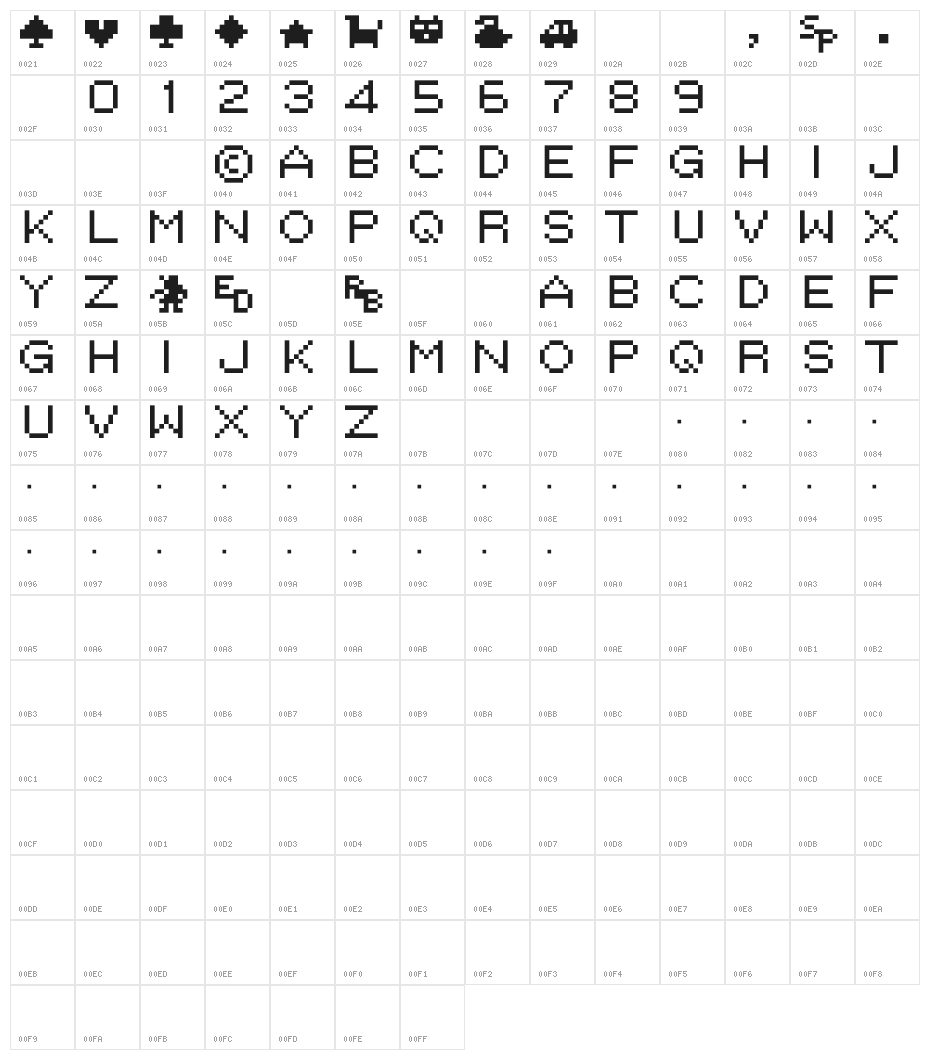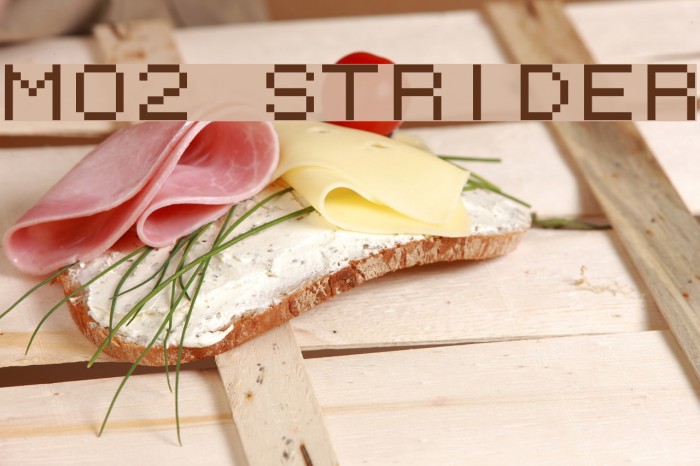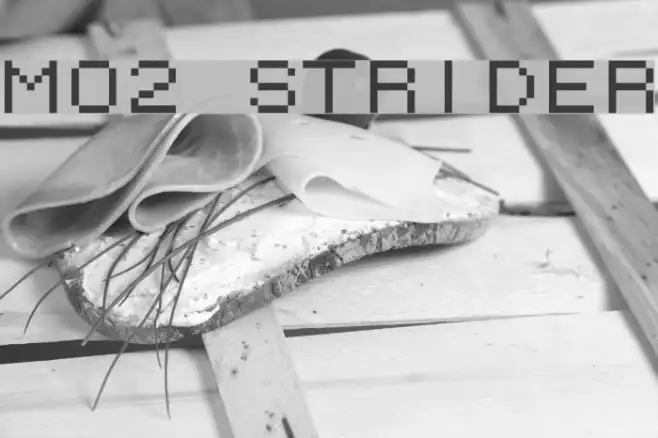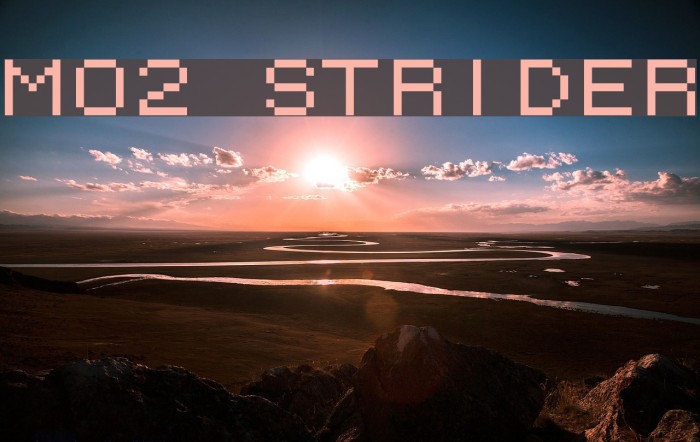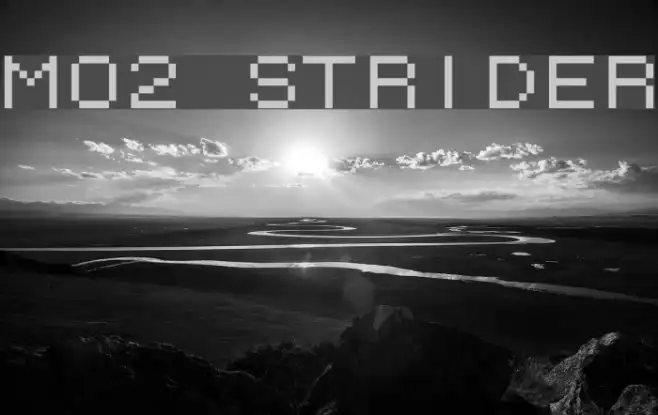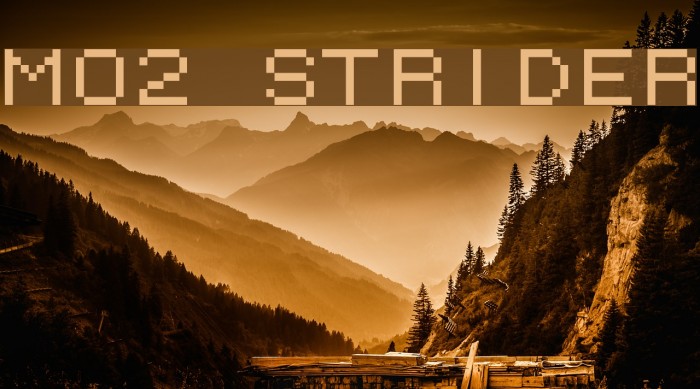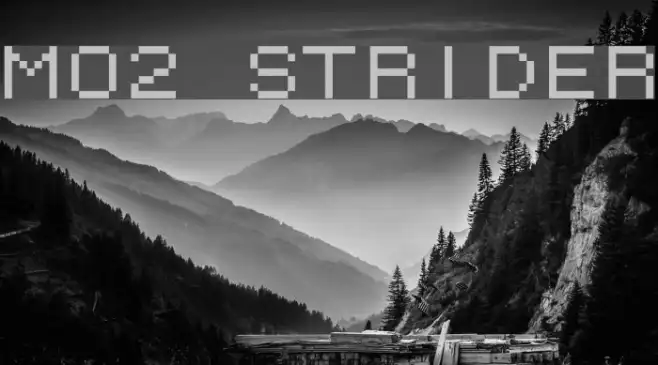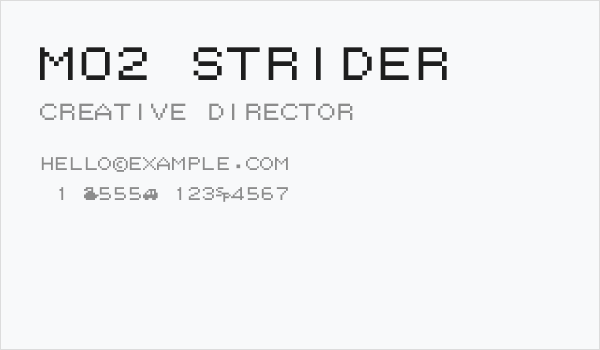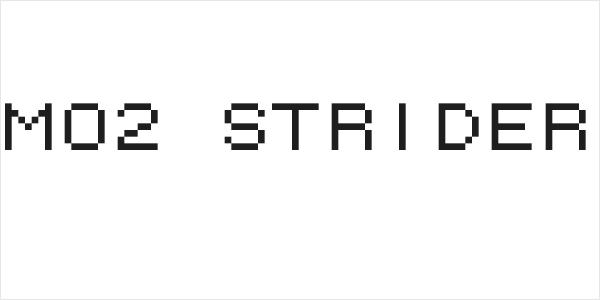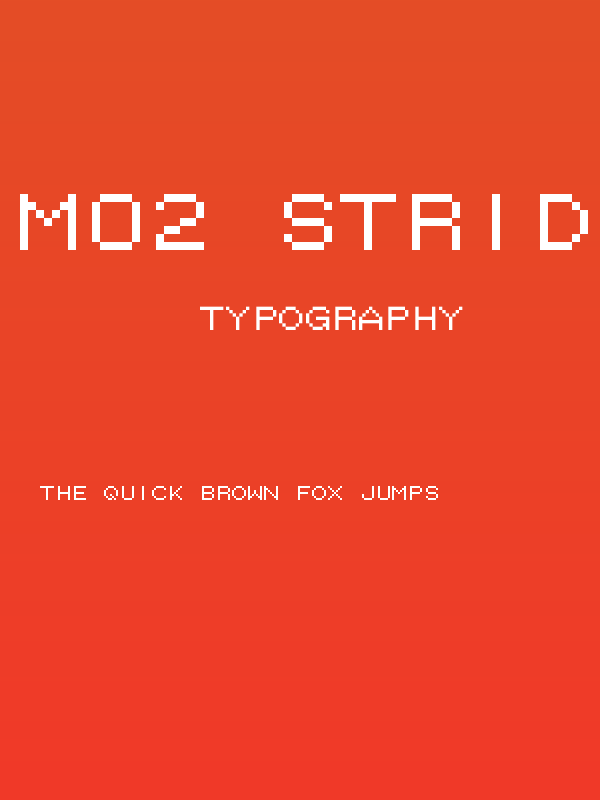
M02_STRIDER Font
M02_STRIDER Description
This font features a pixelated, blocky design reminiscent of early digital displays and retro video games. Each character is composed of a grid-like pattern, giving it a distinctly digital and geometric appearance. The uppercase and lowercase letters maintain a consistent height, contributing to a uniform look. The numerals and special characters follow the same pixelated style, ensuring cohesion across all glyphs. This font's simplicity and clarity make it highly legible, even at smaller sizes. Its nostalgic aesthetic is perfect for projects aiming to evoke a sense of vintage technology or retro gaming culture.
| Proposed Projects | Ideal for retro video game designs, digital art projects, tech-themed posters, and nostalgic branding. |